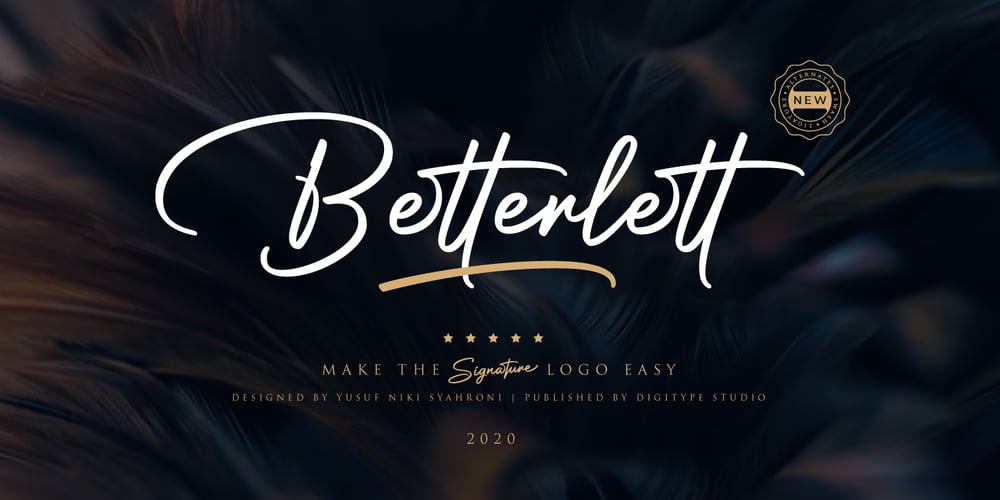
Betterlett Font Family was designed by Yusuf Niky Syahroni and published by Digitype Studio. Betterlett contains 2 styles and family package options. Betterlett is a classy handwritten font, designed to make it easy to create professional signature logos, photologo, labels, packaging, fashion, or any type of advertising purpose for both personal and corporate use. It contains stylistic alternates, ligatures, swashes, and multilingual support.We highly recommend using a program that supports OpenType features and Glyphs panels like many of Adobe apps and Corel Draw, so you can see and access all Glyph variations.